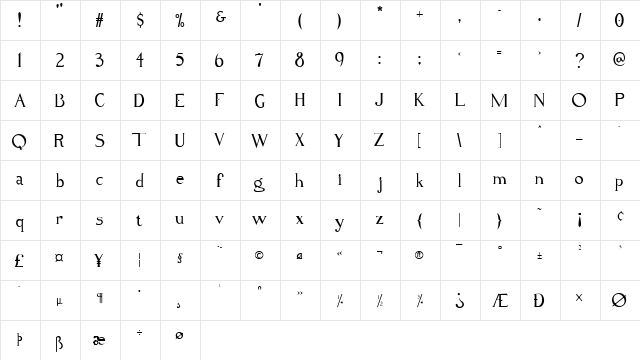
unprofesional Regular
Design Context for unprofesional Typeface
unprofesional takes a measured approach to typography — its balanced proportions and neutral character make it a reliable workhorse for both digital and print work.